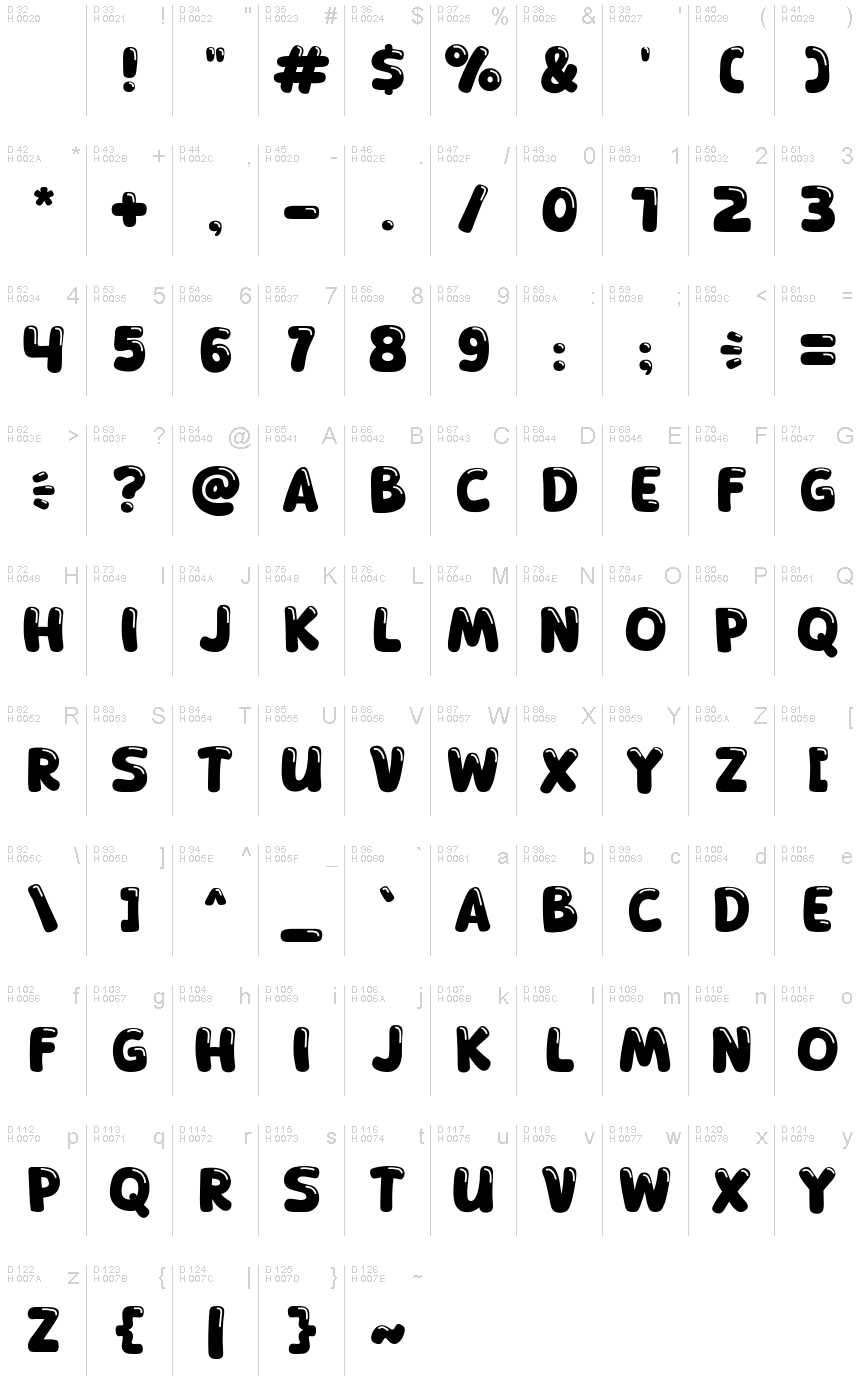
Catboo
Catboo, crafted by Khurasan, exudes a playful charm that's unmistakably whimsical and bold. This cartoon-style display font dances with a lively spirit, inviting smiles with its friendly and rounded contours. Its robust form lends a touch of warmth and approachability that is perfect for engaging audiences in informal and creative contexts.
Using Catboo can infuse your projects with an air of fun and lightheartedness. It shines in settings where a touch of humor is welcome—think children's books, party invitations, or quirky branding elements. Its boldness ensures legibility at various sizes, making it versatile for both digital screens and print media where a strong visual impact is desired.